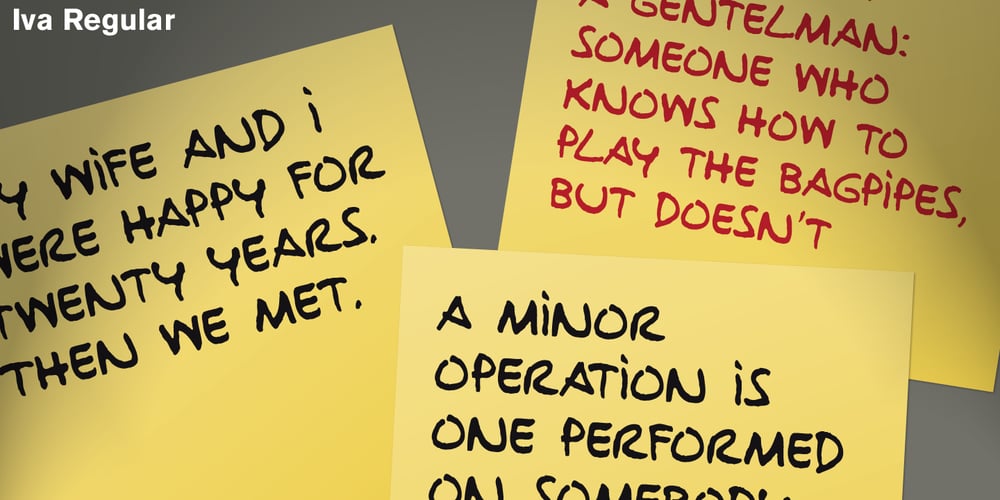
Iva font
Iva Font Family was designed by Joan Barjau and published by Type-Ø-Tones. Iva contains 2 styles and family package options. Ivà by Joan Barjau / OpenType, 2 styles. Ivà, a very personal script based on the handwriting of the cartoonist called Ramón Tosas “Ivà, digitised by Joan Barjau in two plain weights. These fonts were set for the credit titles of a film in 1994 and remain in our collection as an icon of those times.